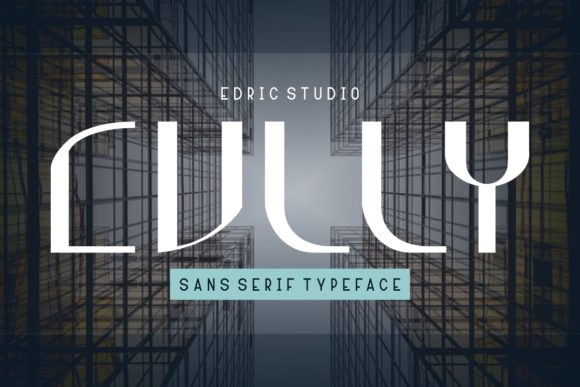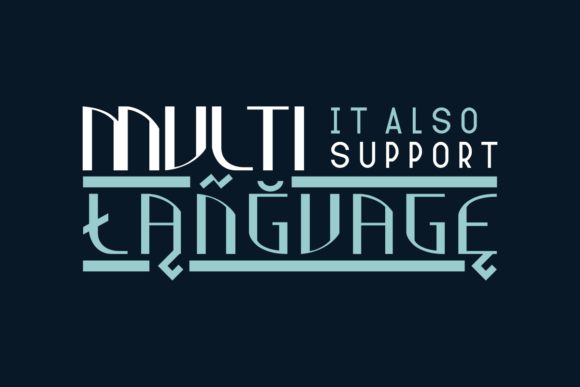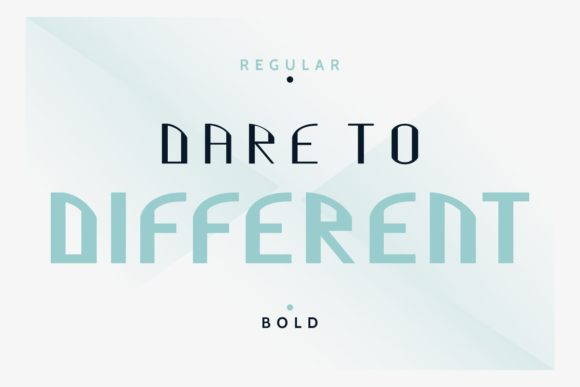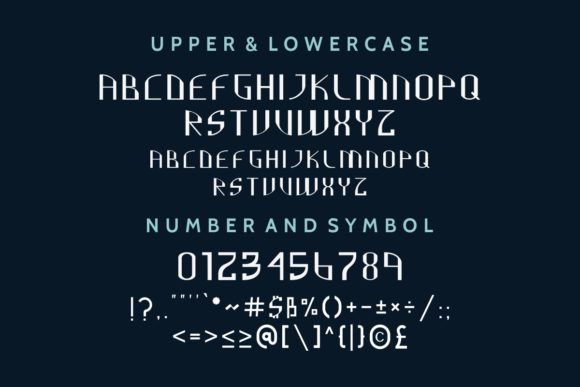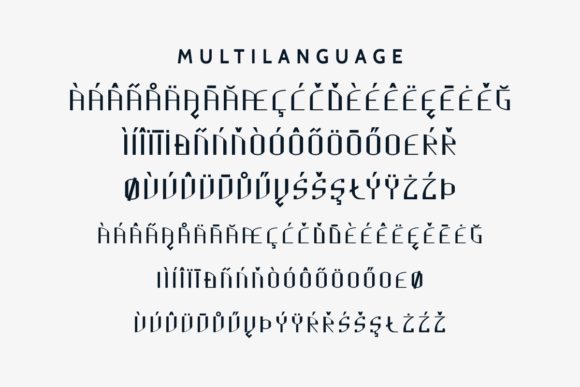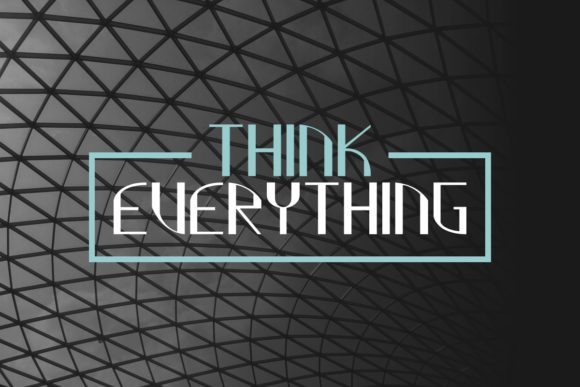
A Visionary Typographic Experience
Have you ever found yourself lost in a sea of ideas, trying to bring a futuristic concept to life? That’s where I was when I stumbled upon the Cully Font – a typographic game-changer that transported me to a world of sleek, high-tech design.
Cully Font is more than just a font; it’s a statement piece that embodies the essence of visionary thinking. Its unique blend of futuristic elegance and stylish glyphs makes it the perfect choice for designers who want to push the boundaries of visual storytelling.
As a valuable asset for designers, Cully Font offers an unparalleled level of creative freedom. Its versatility and sophistication make it an ideal choice for a wide range of projects, from futuristic sci-fi narratives to cutting-edge tech innovations. Whether you’re a seasoned pro or just starting out, the Cully Font is sure to inspire your next big idea.
Cully Font Key Features
- Font Family: Cully is a sans-serif font family designed by Tobias Frere-Jones and Jonathan Hoefler.
- Character Count: The Cully font family includes over 1,200 glyphs, covering a wide range of languages.
- Size: The font size ranges from 6pt to 72pt, making it suitable for various applications, from small text to large headlines.
- Unique Characteristics: Cully features a unique blend of geometric and humanistic qualities, with a strong emphasis on legibility and readability.
- Resolution: The font is designed to work well at high resolutions, making it ideal for digital applications, such as websites, mobile devices, and digital publications.
Cully Font Review
I recently had the chance to work with the Cully Font, and I must say it’s been an interesting experience. Here’s my honest review of this font.
- Unique Style: Cully Font has a distinct, quirky style that’s perfect for adding some personality to your designs.
- Legibility: Despite its unconventional look, Cully Font is surprisingly legible, making it a great choice for body text.
- Flexibility: This font comes in multiple weights and styles, giving you a lot of flexibility when it comes to choosing the perfect version for your project.
- Limited Usefulness: While Cully Font is great for adding some flair to your designs, it may not be the best choice for projects where readability is crucial.
- Overuse Risk: The unique style of Cully Font can quickly become overwhelming if overused, so be careful not to overdo it.
Overall, I think the Cully Font is a solid addition to any designer’s toolkit. While it may not be the most versatile font, it’s perfect for adding some personality to your designs. With its unique style and flexibility, it’s definitely worth considering for your next project.
Tips for Getting the Most Out of Cully Font
Use Cully Font for headings and titles to add a touch of elegance to your design. Pair it with a clean sans-serif font for body text to create a visually appealing contrast. Experiment with different font sizes and styles to create a unique look.
Cully Font is ideal for:
- Editorial and magazine design
- Special event invitations and promotional materials
Montserrat is a sans-serif font that originated in Argentina. It is ideal for use in titles, headings, and body text where a clean and modern look is required. Montserrat is more versatile than Cully Font, with a larger character set and better support for various languages.
Comparison: Montserrat is a more modern and versatile font, while Cully Font is more playful and quirky.
Lato is a sans-serif font that is highly legible and versatile. It is suitable for use in various contexts, including body text, titles, and headings. Lato is more elegant and sophisticated than Cully Font, making it a better choice for formal designs.
Comparison: Lato is a more elegant and sophisticated font, while Cully Font is more playful and casual.
Can I customize the Cully Font?
Yes, Cully Font is a highly customizable typeface. It supports OpenType features, such as ligatures, swashes, and contextual alternates. Additionally, the font includes a range of font weights, from Light to Bold, allowing designers to create a consistent visual hierarchy and emphasis within their designs.